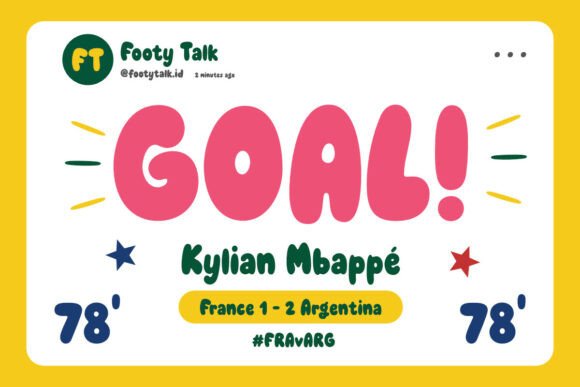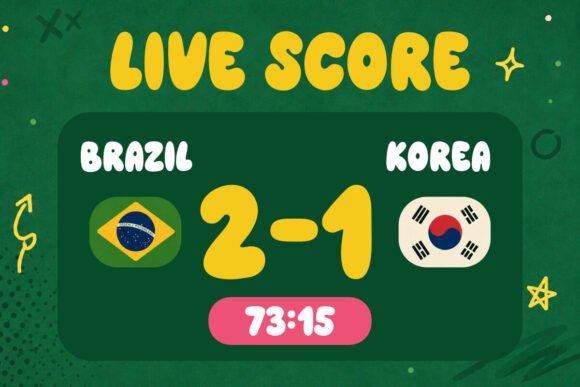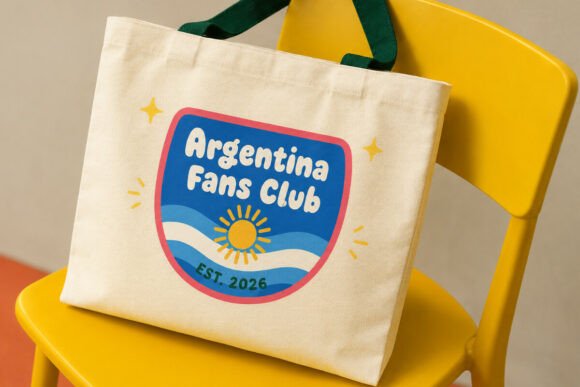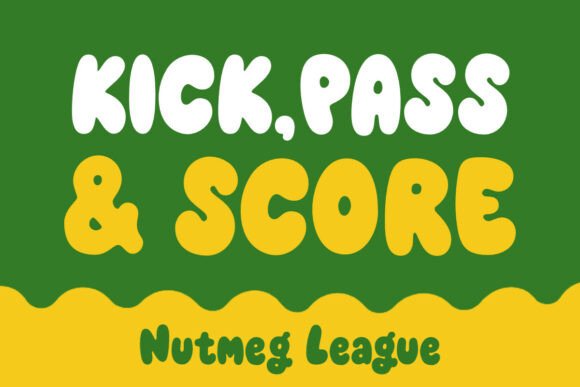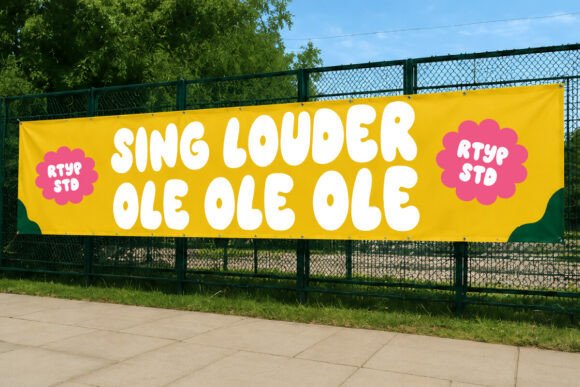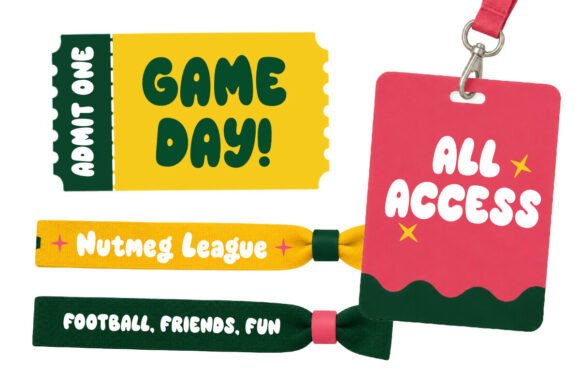
Introduction to Nutmeg League Font
Have you ever been swept away by the electric atmosphere of a football match, with the roar of the crowd and the colorful banners waving high in the air? For designers, capturing that infectious energy and translating it into a visual identity is a thrilling challenge. That’s exactly what the Nutmeg League Font does – it brings the excitement of the stadium to your creative projects, with its playful, chunky shapes and soft curves.
As a designer, you’re always on the lookout for high-quality design resources that can elevate your work and make it stand out. The Nutmeg League Font is a valuable addition to your toolkit, offering a free download that’s perfect for posters, sports branding, and other creative projects. With its transparent background and multilingual support, this font is a versatile design resource that’s sure to become a go-to for many designers.
Whether you’re working on a sports-themed project or simply want to add some fun and personality to your design, the Nutmeg League Font is an excellent choice. Its quirky character forms and bold personality make it a standout, and its retro-fresh vibe is sure to appeal to designers of all levels.
Key Features of Nutmeg League Font
- High-quality font with a unique, hand-drawn design ideal for creative projects.
- Unique characteristics include its quirky, vintage aesthetic and extensive language support, making it suitable for various design projects.
Honest Review: Nutmeg League Font
I recently stumbled upon the Nutmeg League Font, a high-quality design resource that caught my attention. As a designer, I’m always on the lookout for fresh and unique fonts to add some personality to my creative projects. The Nutmeg League Font did not disappoint.
What works well: ✨ The font has a distinct, vintage feel that adds a touch of elegance to any design. It’s perfect for projects that require a sophisticated and refined look. The transparent background is a bonus, making it easy to layer and combine with other design elements. Plus, it’s a free download, which is always a plus in my book.
- Unique, vintage feel
However, there are a few limitations: ⚠️ The font may not be suitable for projects that require a more modern or edgy look. Additionally, the font files may not be compatible with all design software.
Overall, I’m impressed with the Nutmeg League Font. It’s a valuable addition to any designer’s toolkit, and I would highly recommend it for creative projects that require a touch of sophistication and elegance.
Nutmeg League Font
The Nutmeg League Font is a free download, high-quality design resource ideal for any creative project. With its transparent background, this font is perfect for adding a touch of elegance to your designs.
Tips for Getting the Most Out of Nutmeg League Font
To get the most out of the Nutmeg League Font, use it in combination with other design elements to create a visually appealing design. Experiment with different font sizes and colors to add depth and interest to your project.
The Nutmeg League Font is ideal for a variety of projects, including:
- Wedding invitations
- Brochures
- Menus